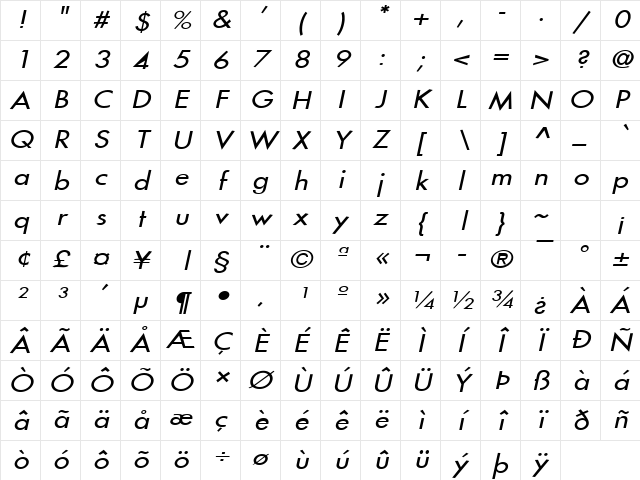
Fusi-Extended Italic
Design Context for Fusi-Extended
Fusi-Extended is a composed and adaptable typeface that performs quietly and consistently across a wide range of design contexts. The slanted form adds forward momentum and visual energy.
Pro Tip: Use Fusi-Extended for emphasis, pull quotes, and subheadings where its slanted energy can add rhythm to the layout.